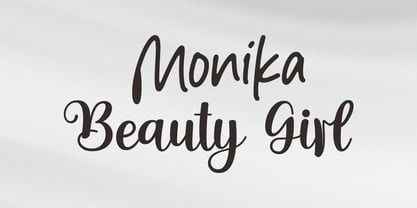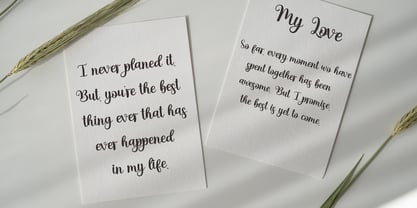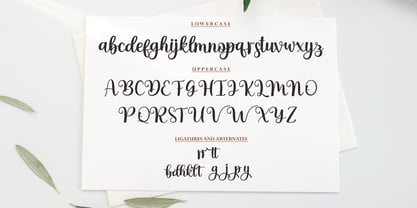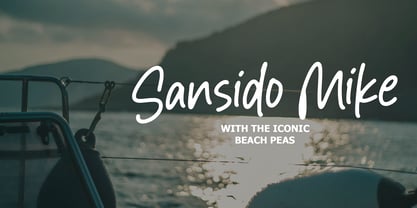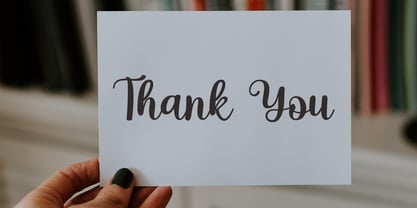
Handmade Cute
by Meta Creative
The Handmade Cute Font Family was designed by and published by Meta Creative. Handmade Cute contains 2 styles and family package options. More about this family
Handmade Cute Font is a handmade font duo that contains bold sans and script. You can use this font for any purposes especially for design that needs retro and old vibes such as poster, logotype, quote, and branding. With alternates, ligatures, and lines from the script font that will make your project looks more appealing. This font duo also support multi language!
Handmade Cute